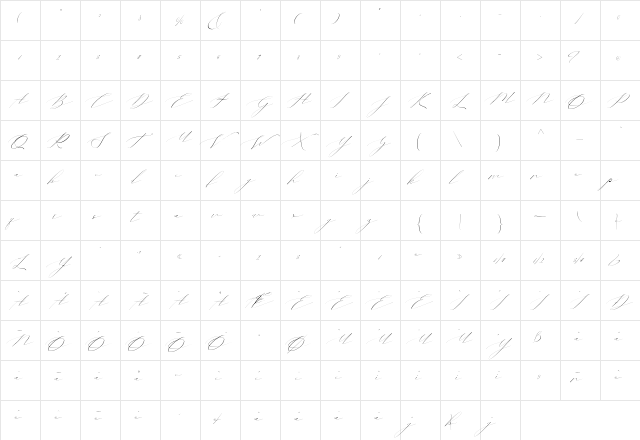
Vineshia jonhson Regular
Design Context for Vineshia jonhson Typeface
Vineshia jonhson is a composed and adaptable typeface that performs quietly and consistently across a wide range of design contexts.